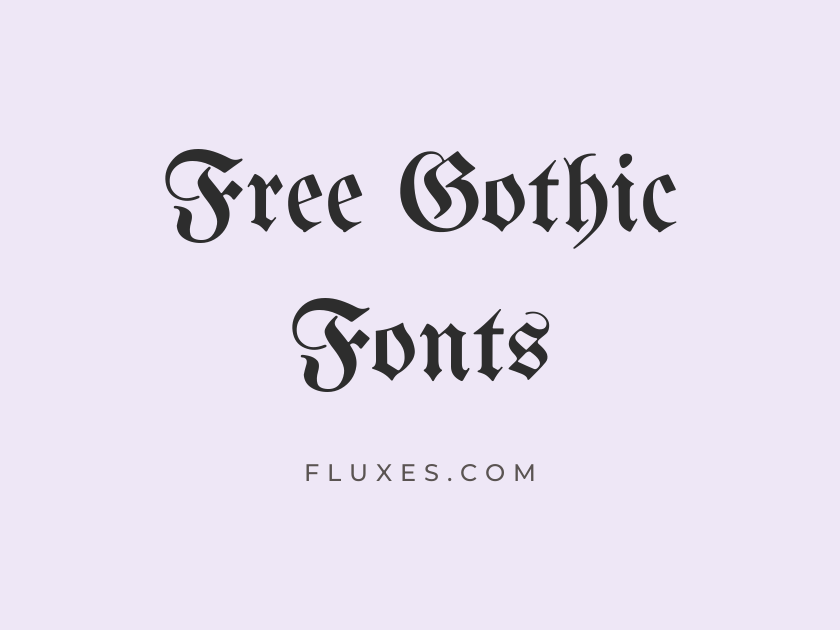
58 Best Free Gothic Fonts
Gothic type covers far more ground than most people expect. It stretches from the dense, hand-cut blackletter of medieval manuscripts through the dripping, jagged lettering of horror movie posters, all the way to the high-contrast, melancholic serifs used on gothic literature covers and dark academia branding. Anyone building a Halloween site, a metal band logo, a haunted-house invitation, or a moody editorial layout needs a deep well of free gothic fonts to pull from, and Google Fonts happens to have an unusually rich one.
What follows moves between four related families: true blackletter and Fraktur letterforms, medieval and fantasy-leaning display faces, horror and gothic-rock display type built for shock value, and the dramatic, dark-toned serifs that carry gothic mood without ever touching a blackletter stroke.
Blackletter and Fraktur
From the abbey scriptorium, a chronicle of shadows
This is the font most people picture the instant someone says “gothic typeface.” Its broken, angular strokes trace directly back to German Fraktur manuscripts, and it reads as unmistakably medieval even at a glance.
Save it for large display use, a metal band wordmark, a tarot deck title, a Halloween party invite, since the dense strokes clot together at small sizes and become hard to read on screen.
UnifrakturCook
Bold as forged iron, dark as candle smoke
UnifrakturCook
A heavier, more confident cousin of UnifrakturMaguntia, built for headlines that need to look carved rather than written. It only ships in bold, which suits its purpose as a single, declarative display face rather than a workhorse.
Beware the crypt beyond the churchyard gate
Pirata One softens true blackletter just enough to stay legible in a browser while keeping its gothic bite. It works nicely on Halloween menus and pirate-adjacent branding alike, and it pairs cleanly with a plain sans for body copy.
Grenze Gotisch
Ancient script etched above the cathedral door
Grenze Gotisch
Because it is a variable font spanning very light to very black weights, Grenze Gotisch is one of the more flexible blackletter options here. The lightest cuts feel almost delicate and ornamental, while the heaviest weight turns properly menacing.
Fruktur
Whispers echo through the abandoned monastery
Fruktur
Fruktur leans slightly rounder and friendlier than most Fraktur revivals, which makes it a good entry point for designers who want gothic flavor without full illegibility. Think craft beer labels and folklore-themed packaging as much as horror.
Germania One
Forged letters from an older, colder age
Germania One
Chunky and slab-like where most blackletter is thin and spiky, Germania One trades delicacy for sheer presence. It reads clearly at a distance, which makes it a rare blackletter option that actually works on posters and signage.
Astloch
Splintered wood and rusted cathedral hinges
Astloch
Astloch looks like letters carved roughly into old timber, knots and all. It is unapologetically rustic and works best in short bursts, a logo mark or a single ominous headline, rather than anywhere near paragraph text.
Grenze
A hymn recorded in a forgotten dialect
Grenze
Grenze is the serif sibling to Grenze Gotisch, keeping the same old-manuscript soul but in a more readable text face. It’s a smart choice when a project needs blackletter atmosphere in its headline but honest legibility everywhere else.
Medieval and fantasy display
MedievalSharp
Quest onward through the haunted forest
MedievalSharp
MedievalSharp has become something of a default for fantasy branding, tabletop game logos, and Renaissance-fair posters, and for good reason. Its angular, sword-etched letterforms carry a lot of atmosphere for a single free download.
Metamorphous
An oath sworn beneath the gargoyle's watch
Metamorphous
Sturdier and more evenly weighted than most medieval display fonts, Metamorphous holds up at mid-size headings rather than only huge display type. It suits game titles, wine labels, and anything wanting a whisper of alchemy.
Almendra
Candlelight flickers across ancient parchment
Almendra
Almendra brings a wonderfully eerie, slightly gaunt quality to a serif text face, with narrow proportions and sharp terminals that feel plucked from a vampire novel’s title page. It is legible enough for subheadings, not just huge display type.
Almendra SC
THE HOUSE OF ASHEN CROWS
Almendra SC
The small-caps cut of Almendra trades lowercase entirely for a set of tall, dramatic capitals, ideal for a short gothic-romance chapter heading or an ornate drop-cap alternative.
Almendra Display
The manor stood silent beyond the fog
Almendra Display
This bolder, more decorative Almendra variant pushes the family’s gaunt personality into full display territory, with flared serifs that suit horror-fiction covers and dark wedding stationery equally well.
Between the blackletter revivals, the medieval and horror display faces, and the darker end of the serif spectrum, there is enough range here to cover a Victorian ghost story, a metal band’s merch line, and a dark academia blog without ever reaching for a paid alternative.